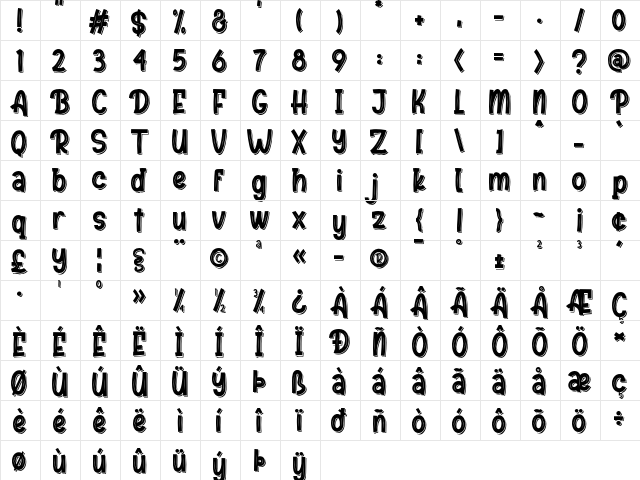
Bubble Love Demo Regular
Design Context for Bubble Love Demo Typeface
Bubble Love Demo has an approachable, lighthearted character — its loose, expressive forms are well-suited to children's content, casual branding, and fun-first design.
Font Pairing: Pairs well with a rounded or humanist sans for body copy, maintaining the friendly tone without relying on Bubble Love Demo to carry extended reading.
Pro Tip: Use Bubble Love Demo at larger display sizes where its expressive character can land. Pair with a clean, simple sans for body copy to maintain readability.